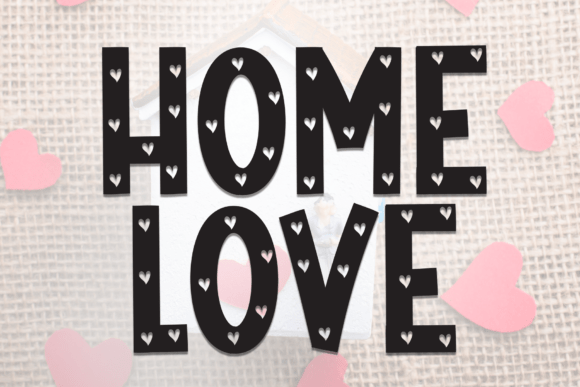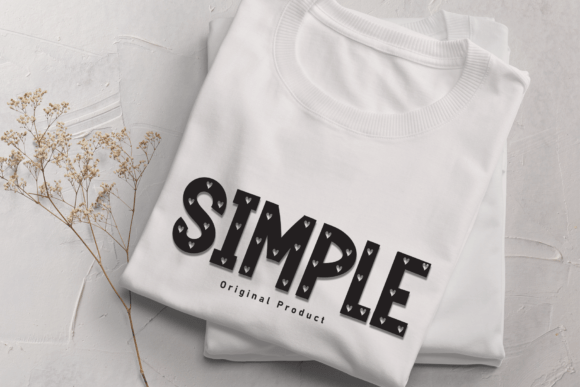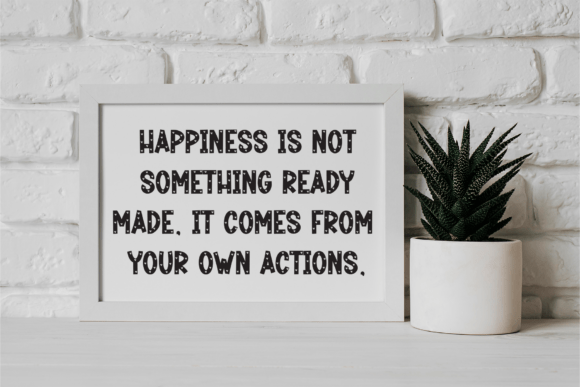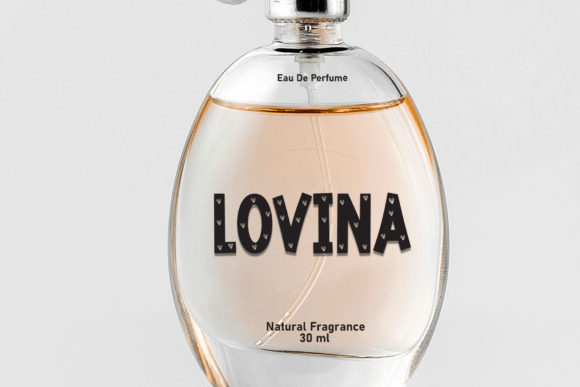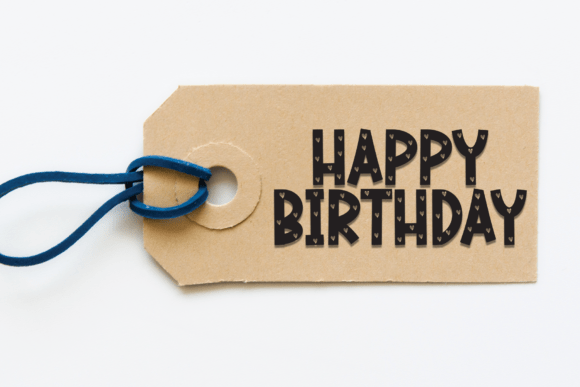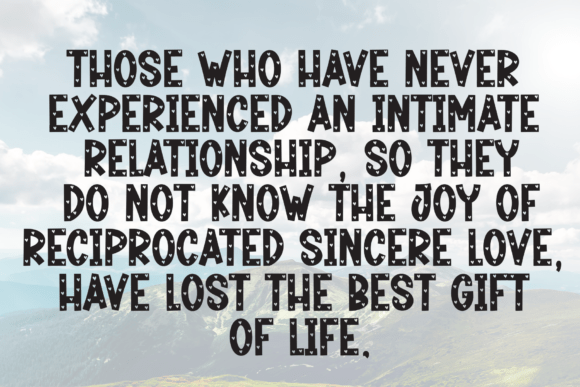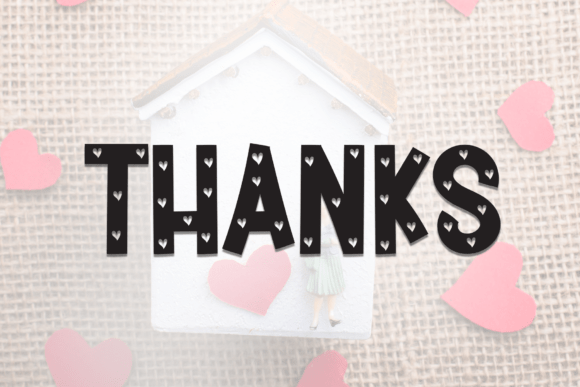
Discover the Perfect Font for Your Home
Have you ever found yourself sitting in front of your computer, staring blankly at a blank document, trying to come up with the perfect design for your latest project? You’ve got a clear vision in your mind, but it’s just not translating onto the page. That’s where the right font can make all the difference.
Enter the Home Love Font, a sweet and friendly handwritten font that’s as versatile as it is charming. With its natural and unique style, this font is the perfect choice for designers looking to add a personal touch to their work. Whether you’re creating a wedding invitation, a birthday card, or a brand identity, Home Love Font is the perfect partner in crime.
What sets Home Love Font apart is its ability to adapt to any design style, making it a valuable addition to any designer’s toolkit. With the Home Love Font, the only limit is your imagination, and that’s what makes it so exciting to work with.
Key Features of Home Love Font
- Unique Characteristics: Home Love Font features a unique, hand-drawn design with a warm and inviting feel, perfect for creating a cozy and welcoming atmosphere in home decor and design projects.
Home Love Font Review
As a designer, I’m always on the lookout for fonts that evoke a sense of warmth and coziness. The Home Love Font is a lovely choice for anyone looking to create a welcoming atmosphere in their design projects. ✨
The font has a clear, legible structure that makes it perfect for body text and headings. The curves are smooth and inviting, and the overall aesthetic is both classic and modern at the same time. ✨
- Legible and clear structure
- Smooth curves and inviting aesthetic
- Perfect for body text and headings
- Classic and modern design elements
However, I do have a few concerns about the font’s limitations. ✠️
- Lack of versatility in smaller font sizes
- Not ideal for bold or dramatic designs
- May not stand out in crowded or busy designs
Overall, I think the Home Love Font is a solid choice for designers looking to create a warm and inviting atmosphere in their projects. While it may not be the best fit for every design scenario, it’s a great option for those looking for a classic and modern aesthetic.
The Home Love Font is perfect for creating inviting and cozy designs, such as:
– Home decor and furniture catalogs
– Interior design and architecture projects
– Blog posts and social media content about home and lifestyle
– Custom stationery and gift tags
Tips for Getting the Most Out of Home Love Font
For the best results, use the Home Love Font in conjunction with warm and inviting colors, and pair it with images of cozy spaces and comfortable living environments. Experiment with different font sizes and styles to create visual interest and hierarchy in your designs.